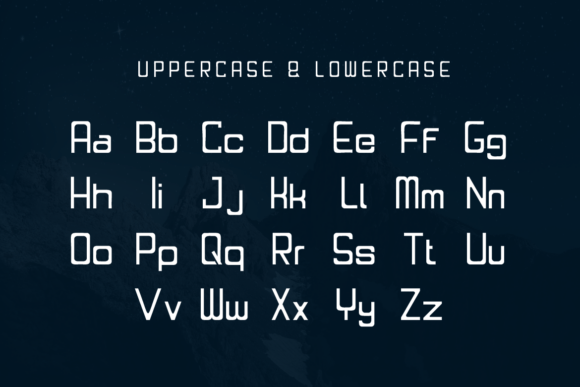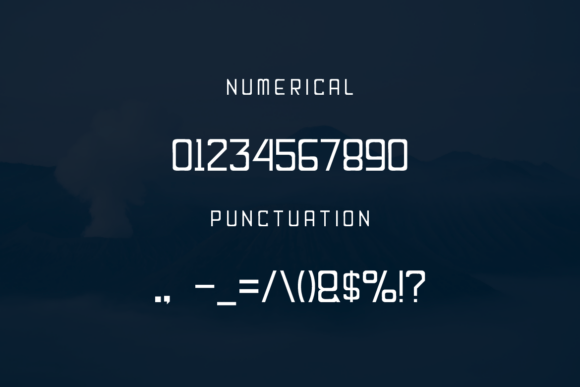
Introduction to Irone Font
Irone is a powerful and stylish sans serif font crafted for clarity and presence.
With strong lines, balanced proportions, and a clean, modern finish, Irone stands tall in any design — from branding and headlines to editorial layouts, digital interfaces, and logo work .
Key Features of Irone Font